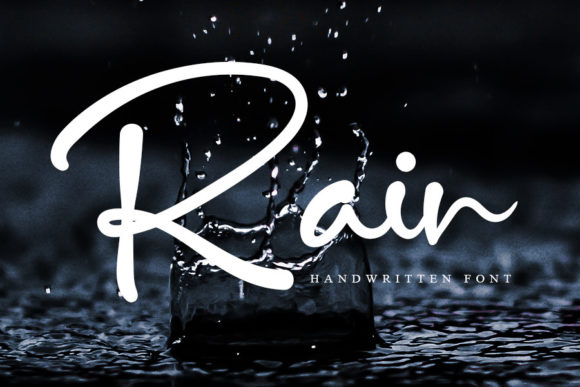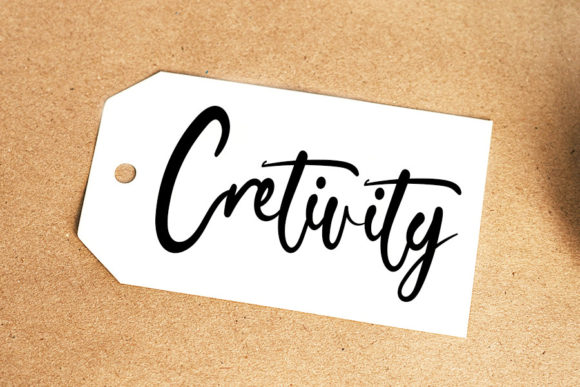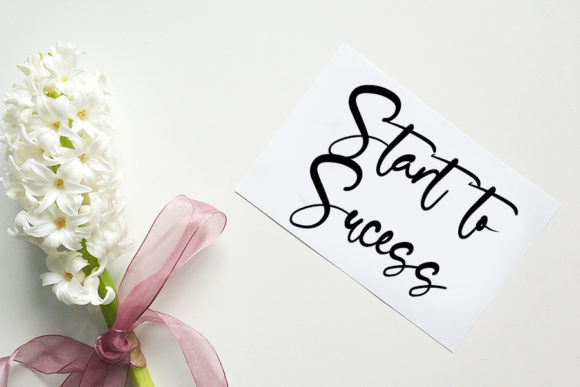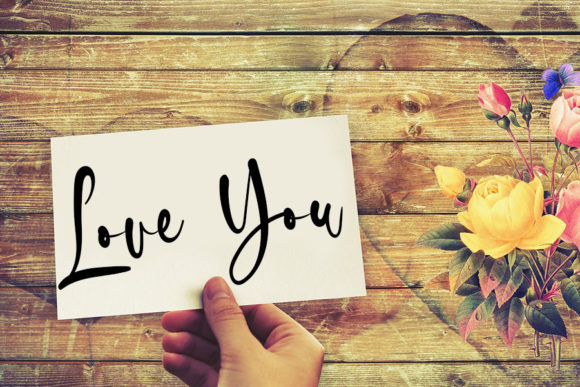
Rain Font
About Rain Font
RainĀ is a chic, refined script font that emanates sophistication and elegance. Its stylish alternates and ligatures make this font the perfect match for any project.